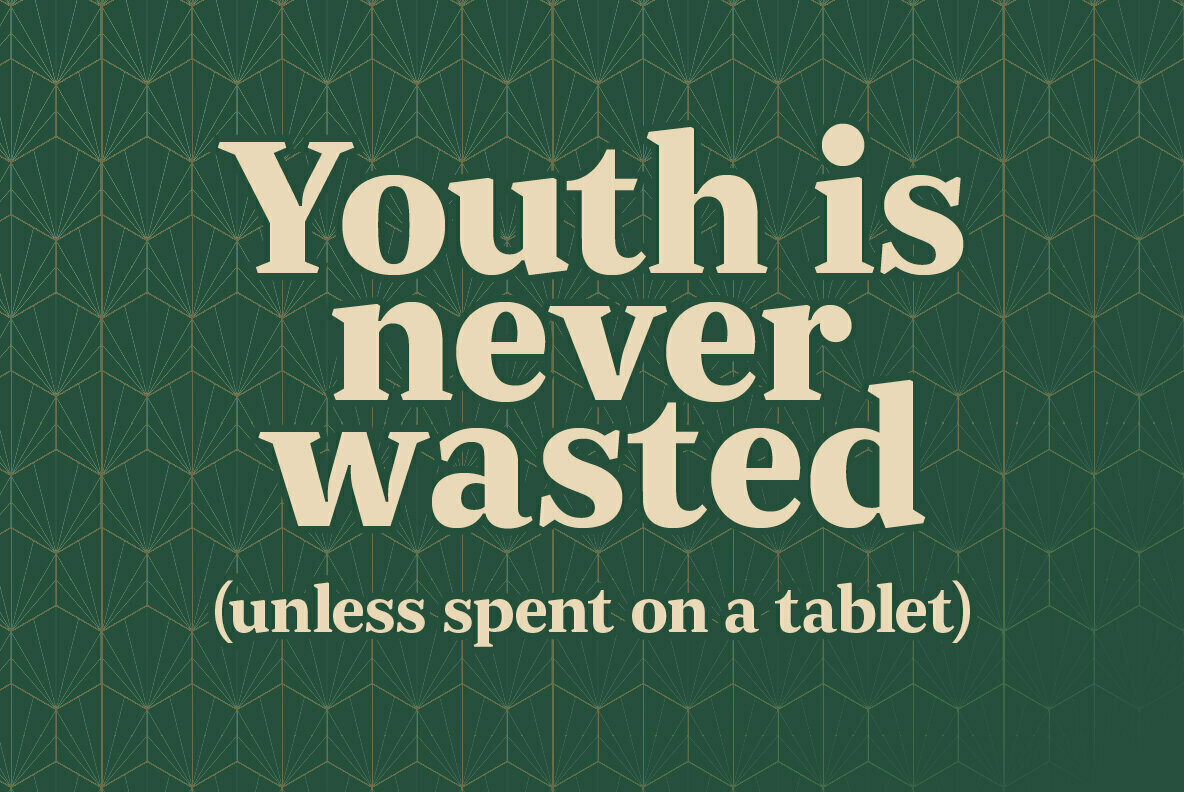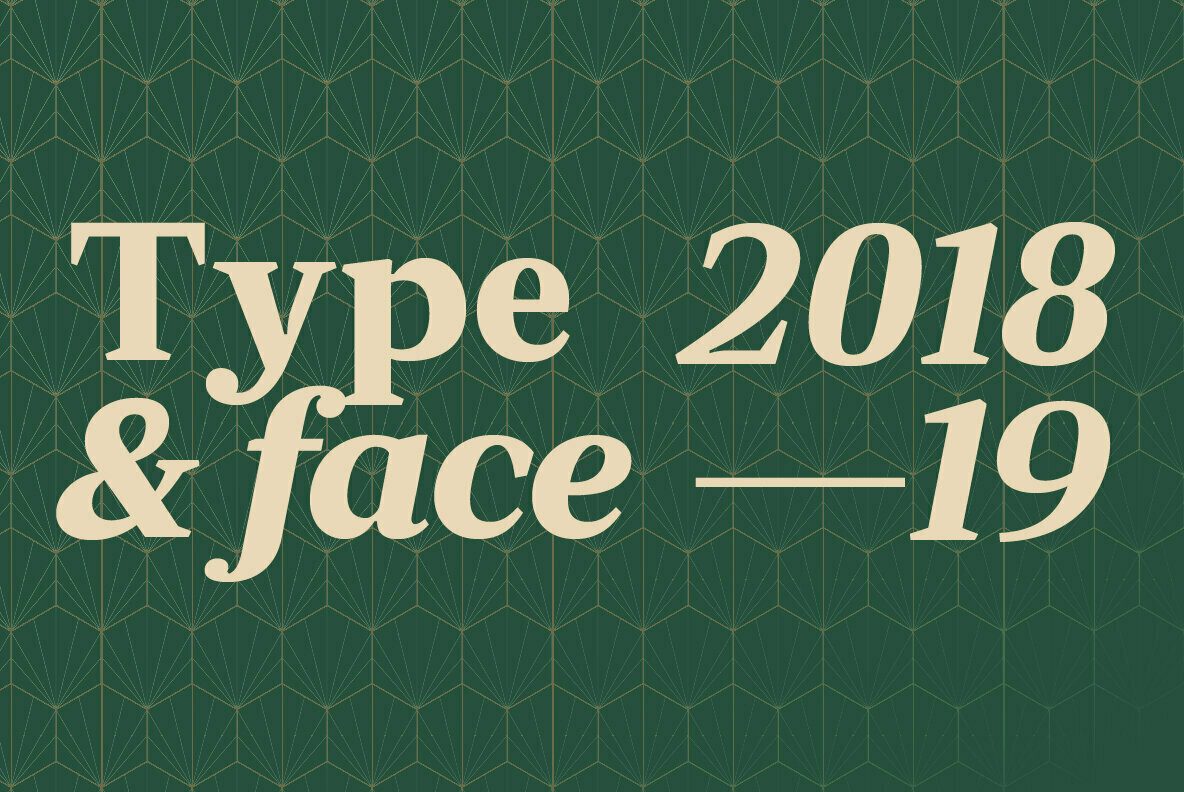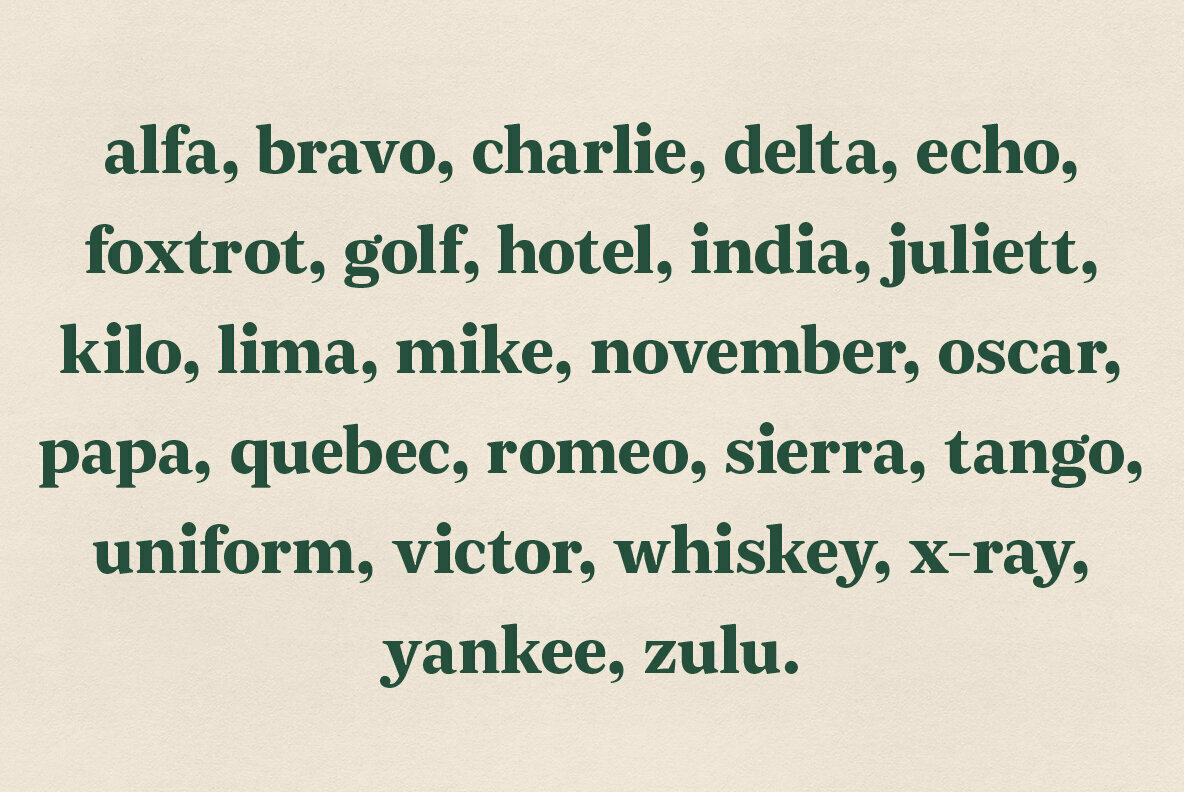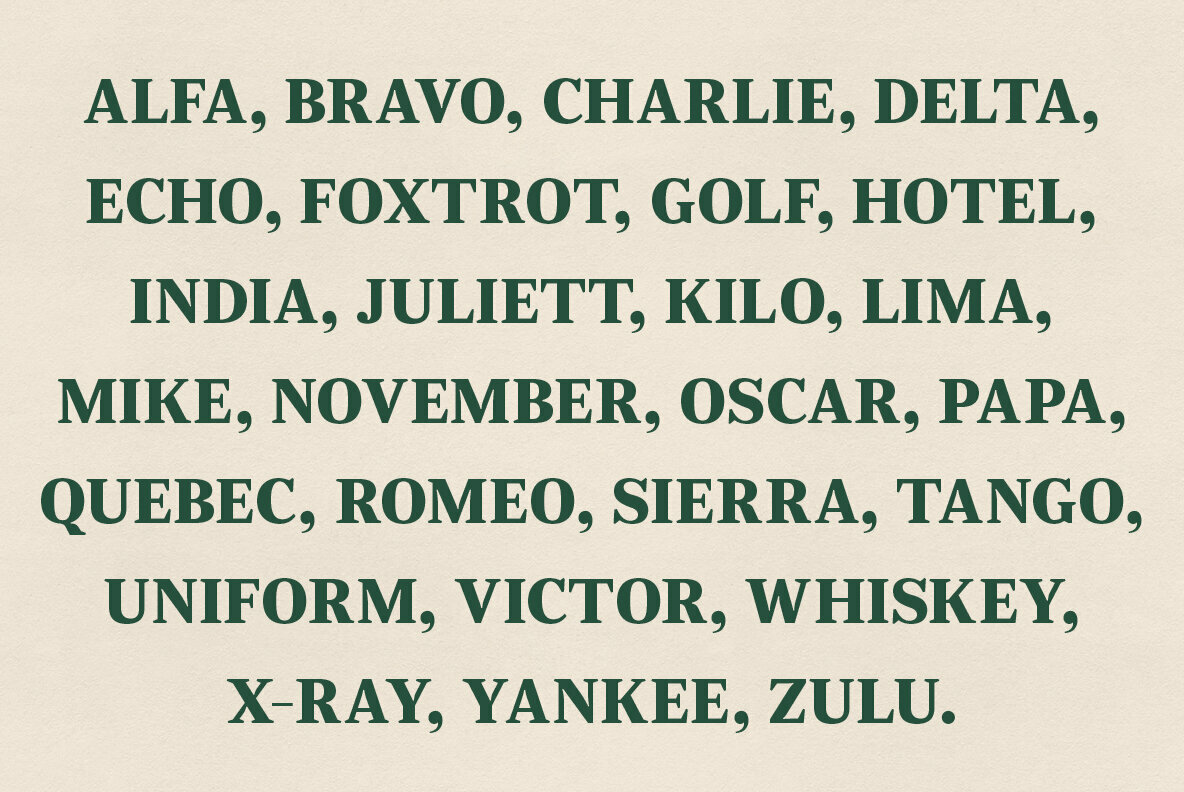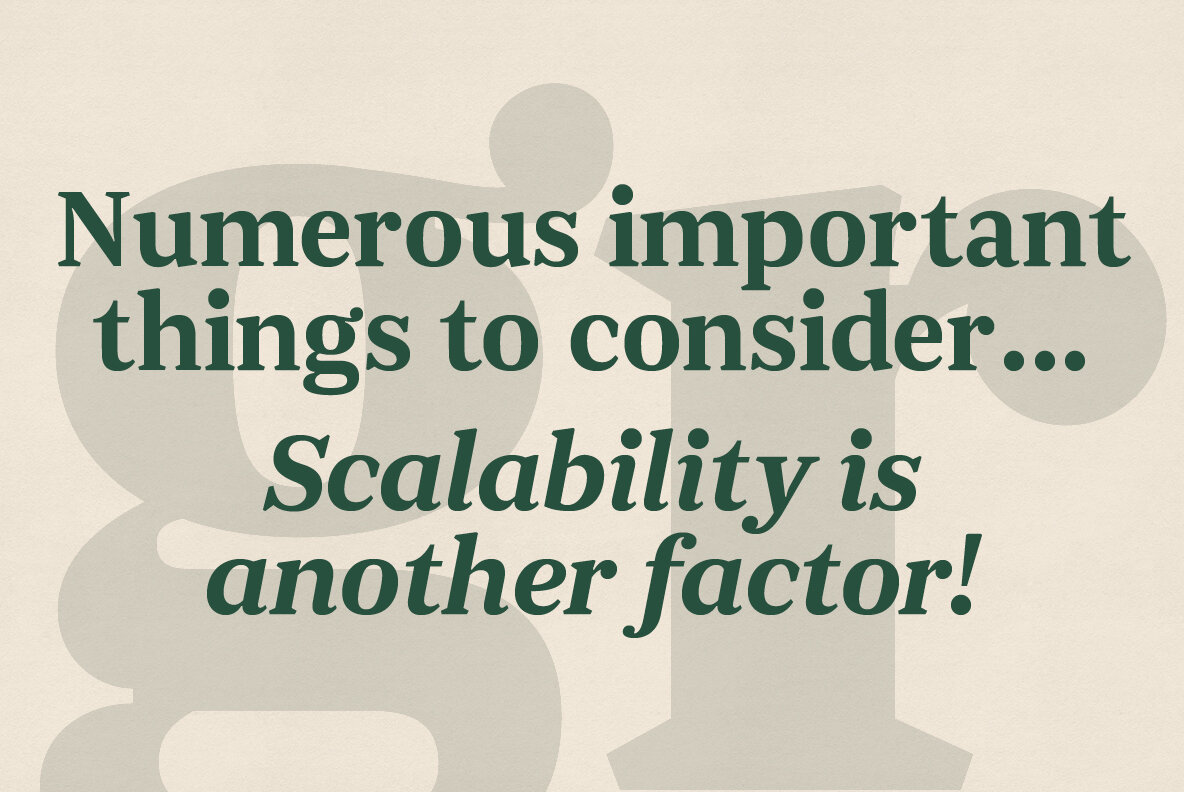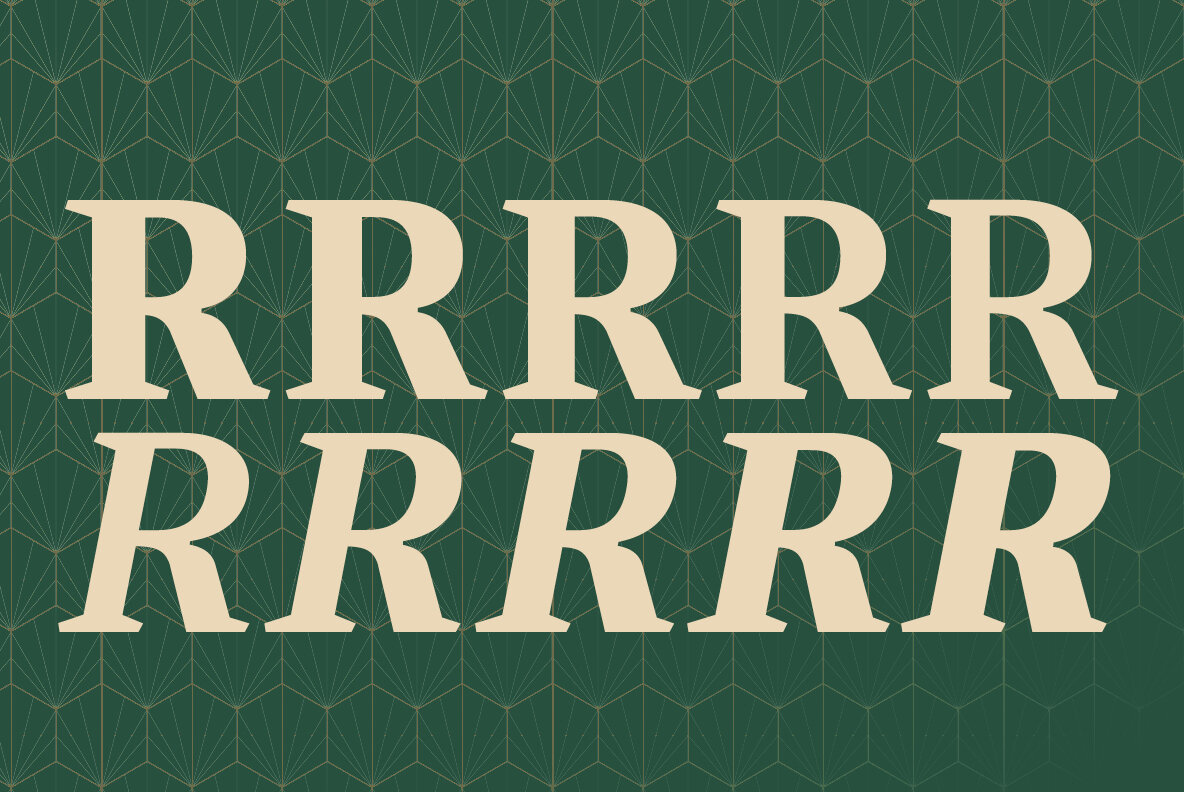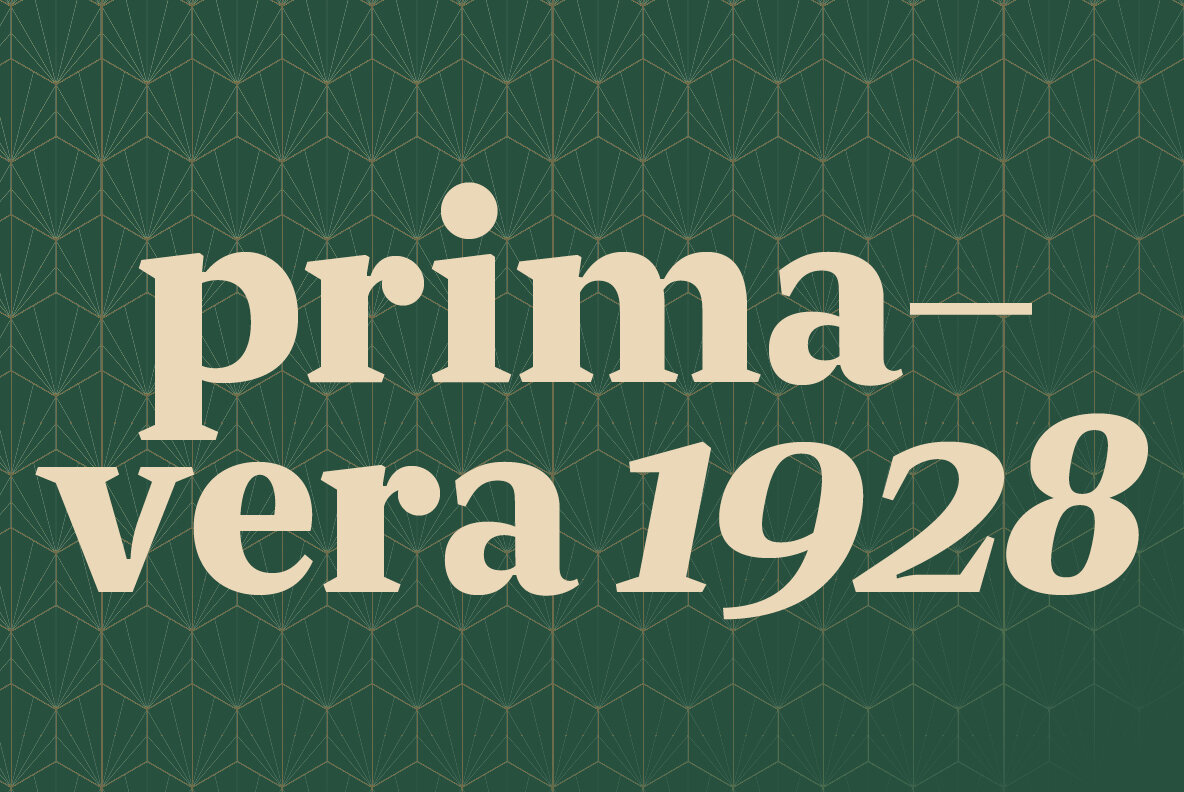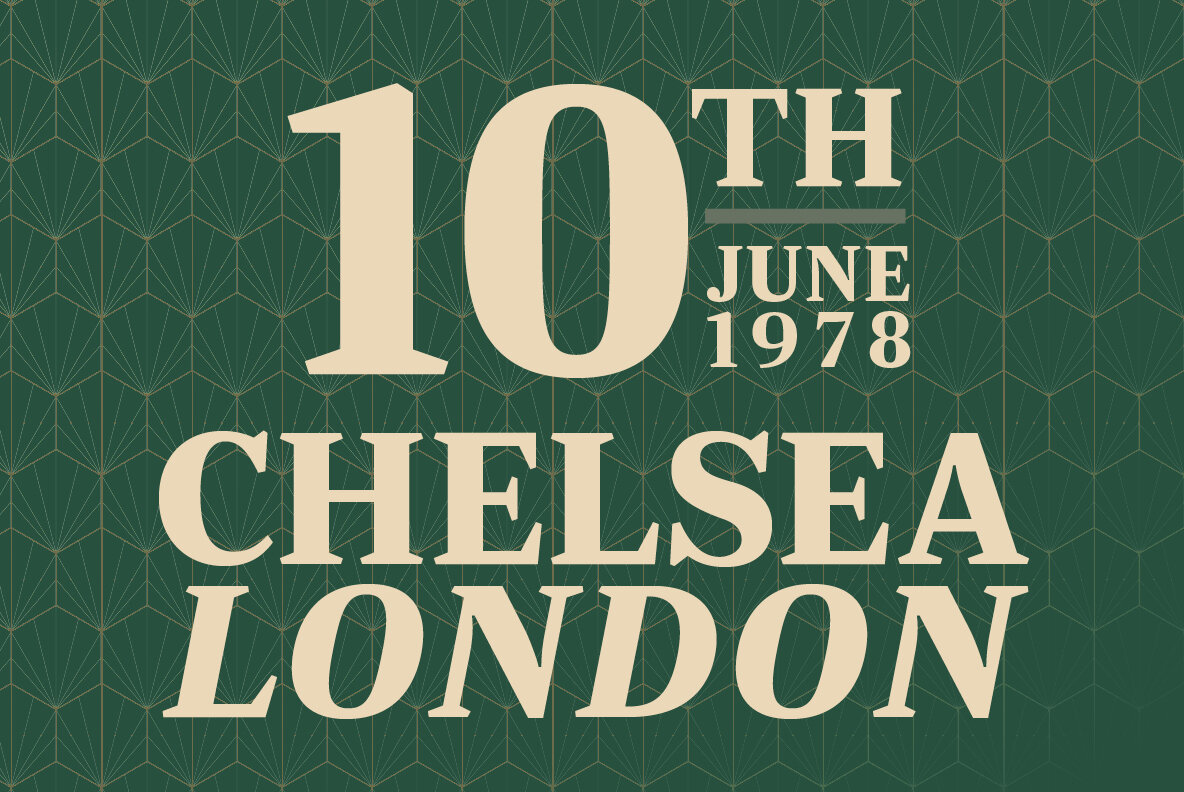
JT Douro Serif Font
This carefully crafted Display Serif Typeface was meticulously with inspiration from the beautiful Douro valley in the north of Portugal.